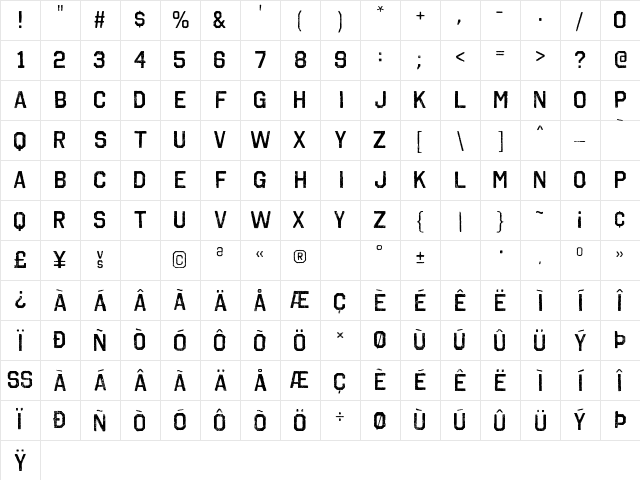
Octin Vintage A Bold
Style: A Bold
Octin Vintage Family
Complete Octin Vintage A Bold glyph index. Displaying only characters natively supported by Octin Vintage A Bold font.
Design Context for Octin Vintage
Octin Vintage wears its vintage influences proudly, with letterforms that recall mid-century signage, classic packaging, and nostalgia-driven design. Its bold stroke weight gives it real presence on the page.
Font Pairing: Combine Octin Vintage with a simple slab or neutral sans - period-accurate companions reinforce the vintage feel without competing for attention.
Pro Tip: Lean into Octin Vintage's period character by pairing it with aged paper textures, muted colour palettes, and vintage illustration styles.